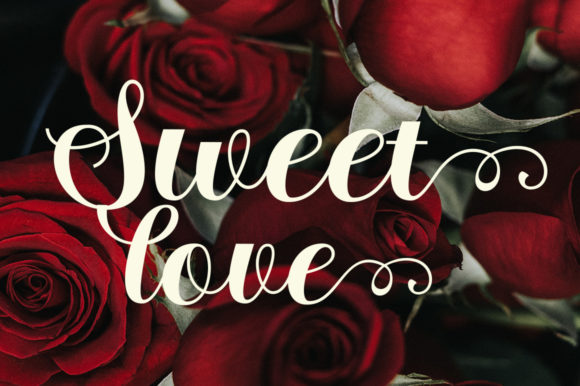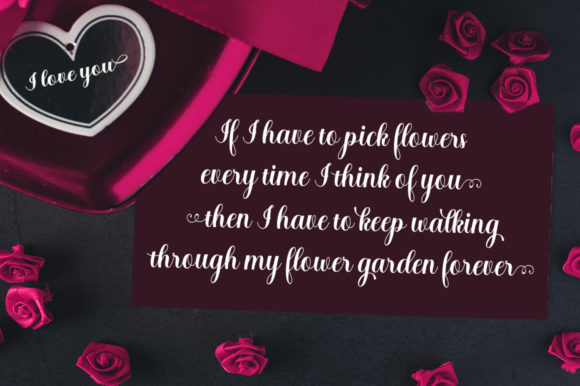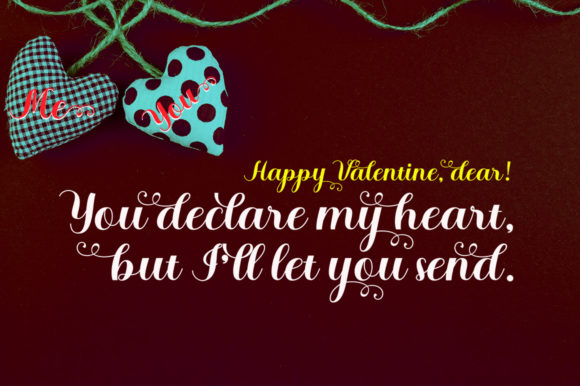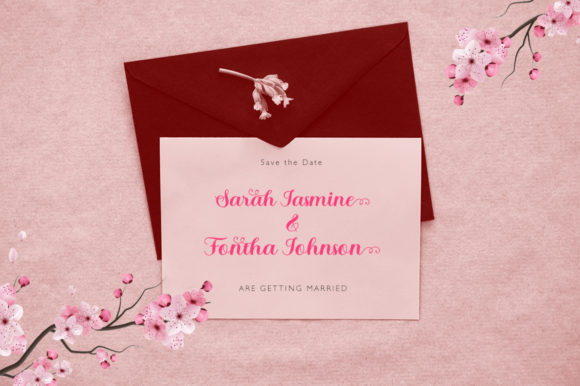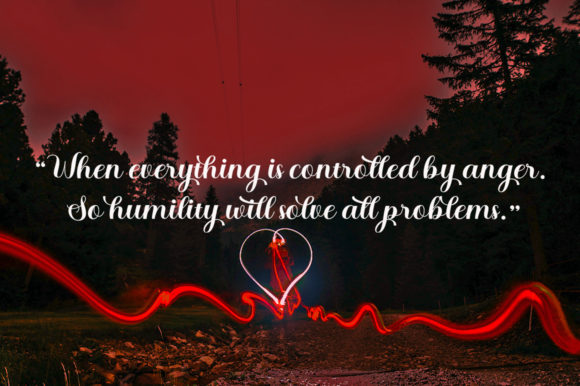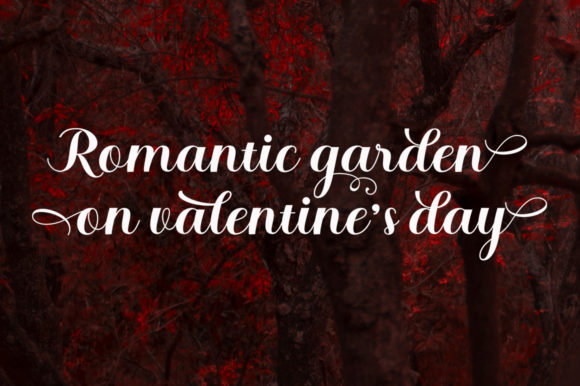
Braylen Font: Elevate Your Designs with Elegance and Flair
Are you a designer or crafter looking for a font that exudes elegance and sophistication? Look no further than the stunning Braylen Font. This beautiful handwritten font is perfect for adding a touch of refinement to a wide range of design projects, from wedding invitations and greeting cards to logos and business cards.
The Beauty of Braylen Font
Braylen Font feels incredibly elegant and flowing, making it the perfect choice for designs that require a handwritten touch. Its smooth lines, gorgeous glyphs, and stunning alternates come together to create a truly unique and eye-catching aesthetic. Whether you’re looking to add a personal touch to your designs or create a lasting impression, Braylen Font is the perfect choice.
One of the best things about Braylen Font is its versatility. It’s perfect for a wide range of design projects, including:
- Wedding invitations: Add a touch of elegance and sophistication to your wedding invitations with Braylen Font.
- Thank you cards: Show your appreciation with beautifully designed thank you cards featuring Braylen Font.
- Quotes: Add a touch of inspiration to your quotes with the elegant and flowing lines of Braylen Font.
- Greeting cards: Create stunning greeting cards for any occasion with Braylen Font.
- Logos: Use Braylen Font to create a unique and memorable logo for your business or brand.
- Business cards: Elevate your business cards with the sophisticated and elegant lines of Braylen Font.
What Sets Braylen Font Apart
So, what sets Braylen Font apart from other fonts? Here are just a few features that make it a standout:
- Varying baseline: Braylen Font features a varying baseline, which gives it a unique and organic feel.
- Smooth lines: The smooth lines of Braylen Font create a flowing and elegant aesthetic.
- Gorgeous glyphs: Braylen Font features a range of gorgeous glyphs, including alternates and ligatures.
- Stunning alternates: The alternates in Braylen Font add an extra level of sophistication and elegance to your designs.
Tips for Using Braylen Font
Here are a few tips for getting the most out of Braylen Font:
- Use it sparingly: While Braylen Font is beautiful, it’s best used sparingly to avoid overwhelming your design.
- Pair it with other fonts: Braylen Font pairs well with a range of other fonts, including serif and sans-serif fonts.
- Experiment with sizes: Braylen Font looks great in a range of sizes, from large headings to smaller body text.
In conclusion, Braylen Font is a stunning handwritten font that’s perfect for designers and crafters looking to add a touch of elegance and sophistication to their designs. With its smooth lines, gorgeous glyphs, and stunning alternates, Braylen Font is sure to elevate your designs to the next level. Whether you’re creating wedding invitations, greeting cards, logos, or business cards, Braylen Font is the perfect choice.